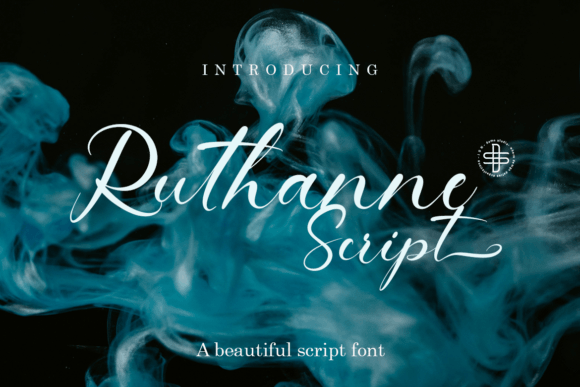
Ruthanne Script: A Modern Typeface for Elegant Projects
When you first encounter Ruthanne Script, it doesn't scream for attention; it invites you in. There's a quiet confidence in its letterforms, a blend of modern typography and a distinctly feminine grace that feels both fresh and timeless. This isn't a wild, untamed handwritten font. Instead, it’s a polished script font where each flowing stroke seems purposeful, creating a rhythm that guides the eye. It’s the kind of creative font that understands the difference between casual and careless, offering a sophisticated voice for projects that need a personal, yet professional, touch.
The Personality Behind the Letters
Understanding a typeface is like understanding a person. Ruthanne Script has a personality defined by contemporary charm. Its connections are fluid but legible, avoiding the overly decorative loops that can sometimes make script fonts difficult to read in body text. The slight, natural variations in its baseline give it an organic, hand-lettered feel without sacrificing the consistency needed for strong brand identity. This balance is its core strength. It feels personal and crafted, not generated. The overall appeal lies in its versatility—it can be playful for a children's brand or deeply elegant for a luxury service, all depending on the context and color palette you place it in.
Where Ruthanne Script Truly Shines
Knowing where a font works best is key to using it effectively. Ruthanne Script excels as a display font, meant for headlines, logos, and featured text rather than long paragraphs. Its sweet spot is in applications where personality and first impressions are paramount.
Branding and Logo Design
For a logo design, this premium font can instantly communicate a brand's ethos. Think of a boutique wedding planner, a floral studio, a artisan bakery, or a lifestyle blogger. Using Ruthanne Script in a logo establishes an immediate sense of style, care, and approachability. It suggests that the brand values aesthetics and attention to detail. It pairs beautifully with a clean sans serif font for company names or taglines, creating a balanced and professional mark.
Print and Packaging Design
In packaging design, the font can elevate a product from ordinary to desirable. Imagine it on the label of a hand-poured candle, the wrapper for gourmet chocolates, or the branding for a skincare line. It adds a layer of perceived quality and craftsmanship. For editorial design, such as magazine subheadlines or chapter titles in a book, it introduces a touch of elegance that breaks the monotony of standard body text, enhancing the reader's experience.
Digital and Social Media
The digital realm is where its versatility is tested daily. On websites, use it for hero section quotes or call-to-action buttons to draw focus. For social media graphics, it’s a powerhouse. Instagram stories, Pinterest pins, and Facebook ads become more engaging with a stylish headline that stops the scroll. Its clarity at various sizes ensures it remains readable on mobile screens, a critical factor for web design and digital marketing.
Making It Work: Practical Guidance for Your Projects
Choosing the right font is a strategic decision. Here’s how to evaluate and implement Ruthanne Script effectively.
Evaluating Fit and Testing Pairings
First, consider your project's audience and message. Does the feminine, elegant style align with your target market? A rugged outdoor brand might find it misaligned, but a consultancy firm for female entrepreneurs could find it perfect. Always test the font in context. Create a mock-up of your logo or a draft of your social media post. Read it back at a glance—does the meaning come through instantly?
Next, master the art of the font pairing. Ruthanne Script rarely works well alone for all text. Its best companion is often a strong, simple serif font or sans serif font. A geometric sans serif can provide a modern counterpoint, while a traditional serif can lean into a more classic feel. The goal is contrast in style but harmony in weight and proportion. Avoid pairing it with another ornate or highly stylistic font, which creates visual competition.
Understanding Its Components and Licensing
A quality commercial font like this often comes with more than just basic letters. Look for included styles: does it have alternates, swashes, or ligatures? These extra design assets allow for customization, helping you create unique letter combinations that make your work stand out. For example, a special swash on a capital letter can turn a simple word into a focal point.
The Final Stroke: A Tool for Storytelling
Ultimately, a font is a tool for storytelling. Ruthanne Script tells a story of modern charm and accessible elegance. It doesn’t shout; it speaks with clarity and style. Its value lies not just in its beautiful curves but in its ability to shape perception, create hierarchy, and build a cohesive visual language. Whether you're designing a wedding invitation, building a brand from the ground up, or crafting a social media campaign, this script font offers a reliable way to inject personality and sophistication into your work. It’s a reminder that in design, the right details—like a well-chosen typeface—can transform the ordinary into the memorable.